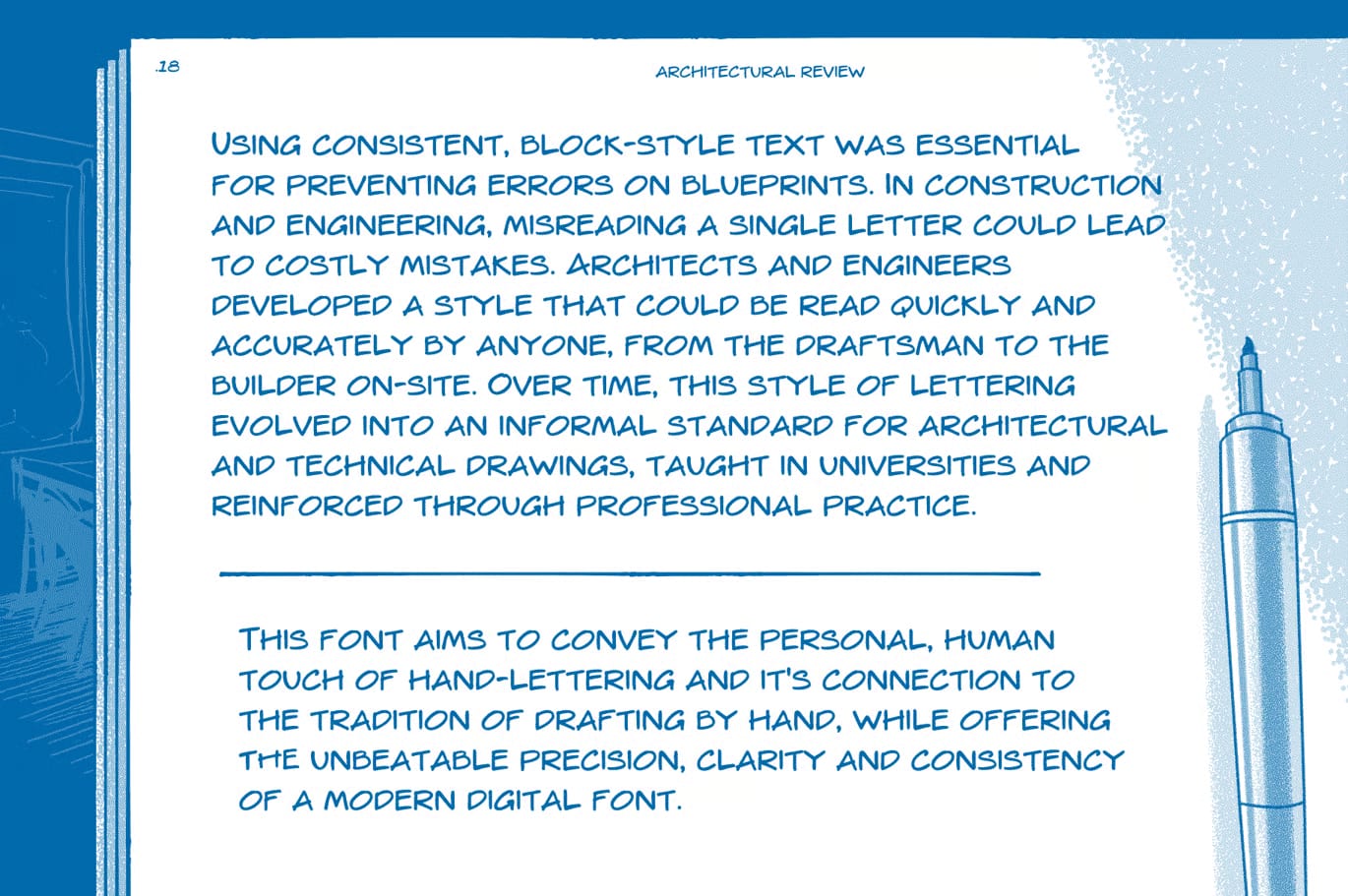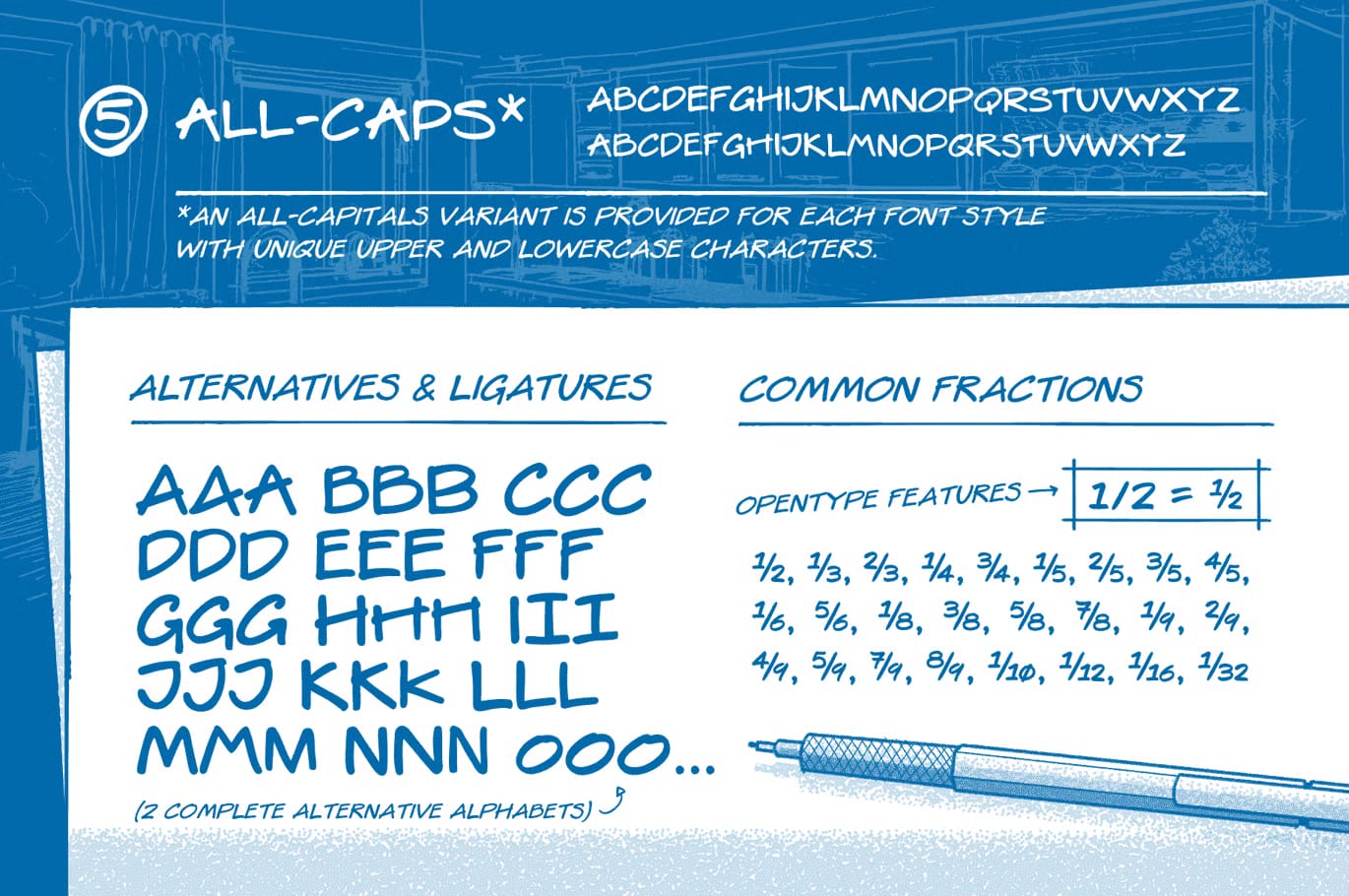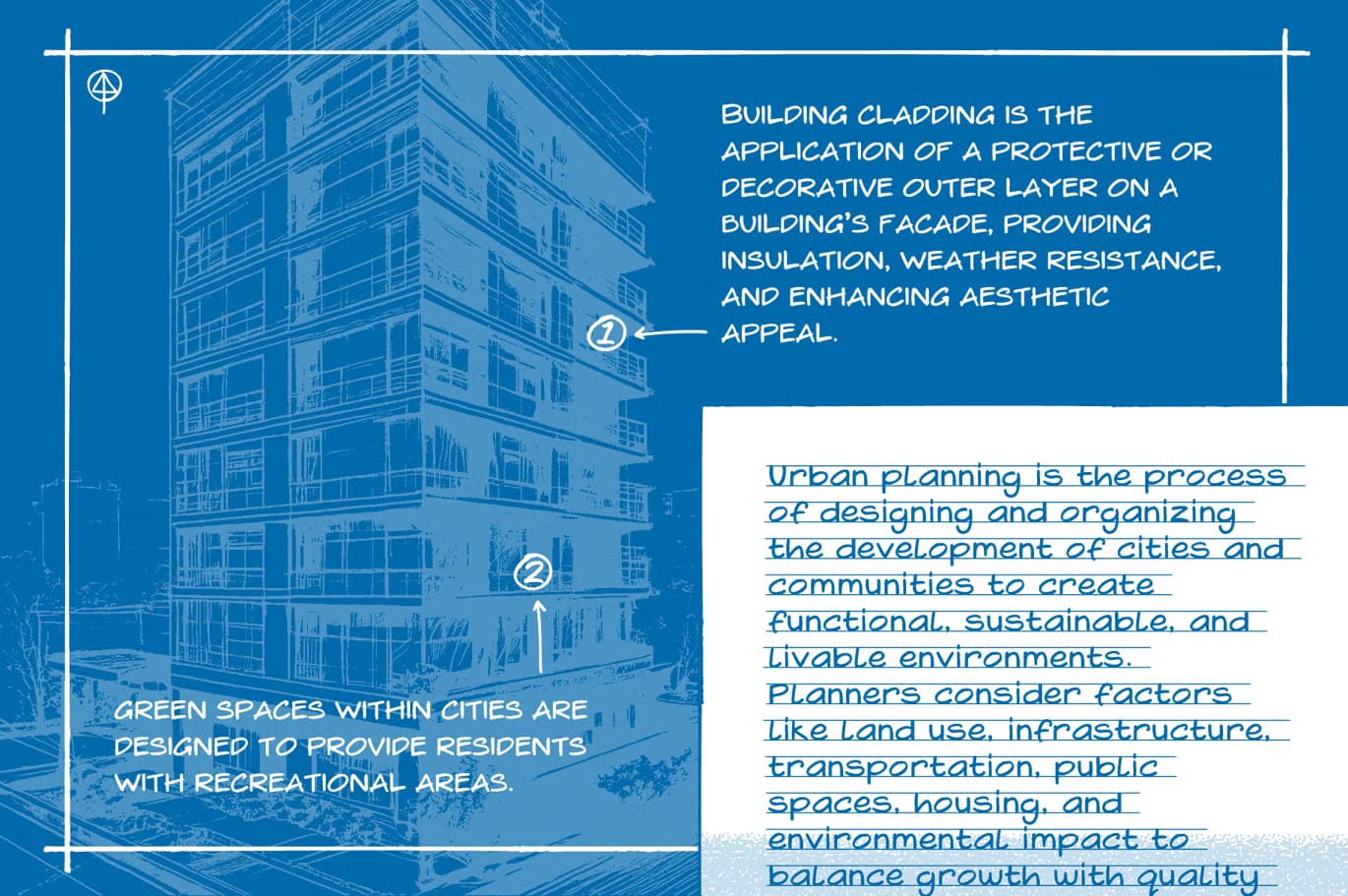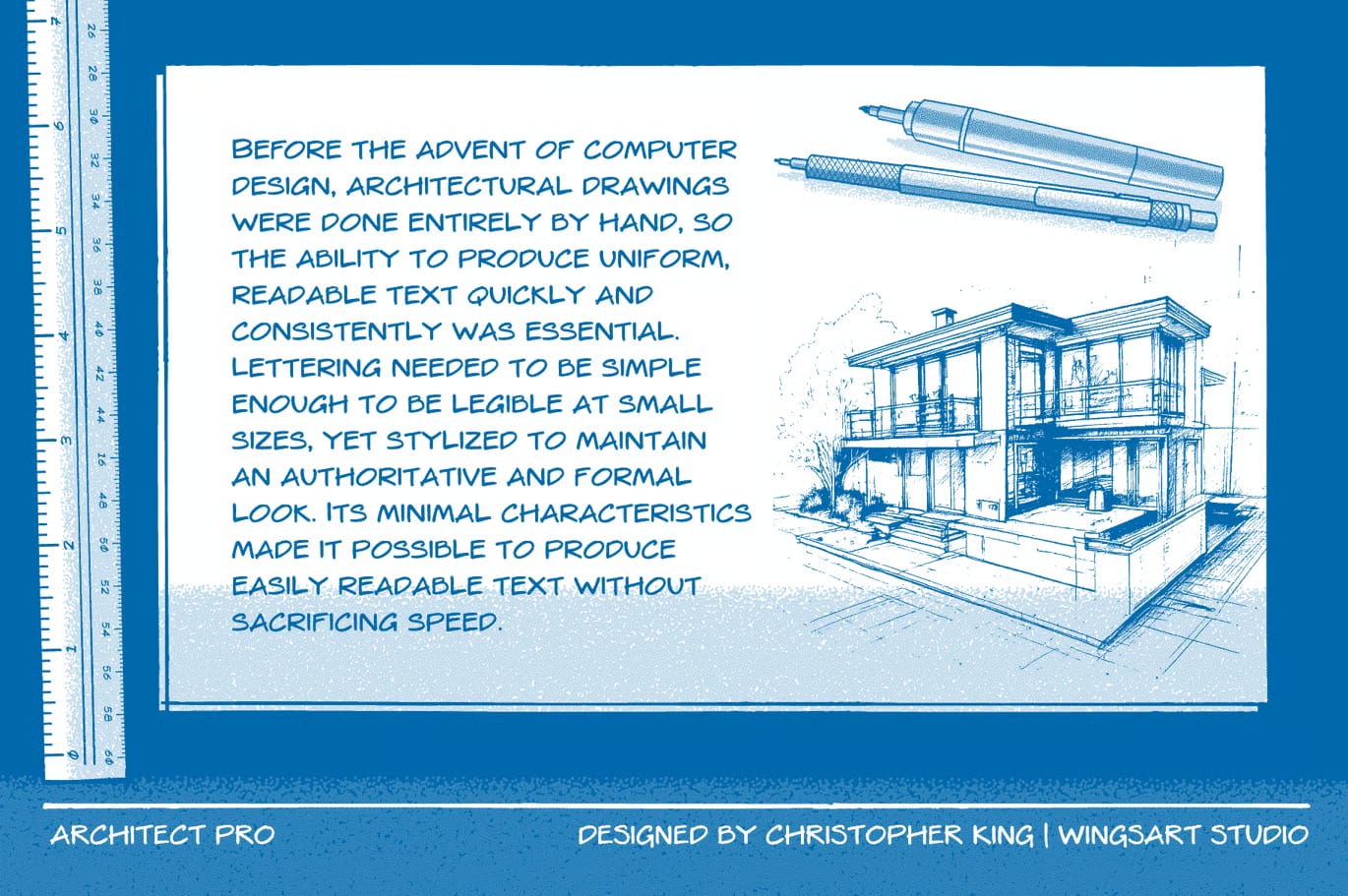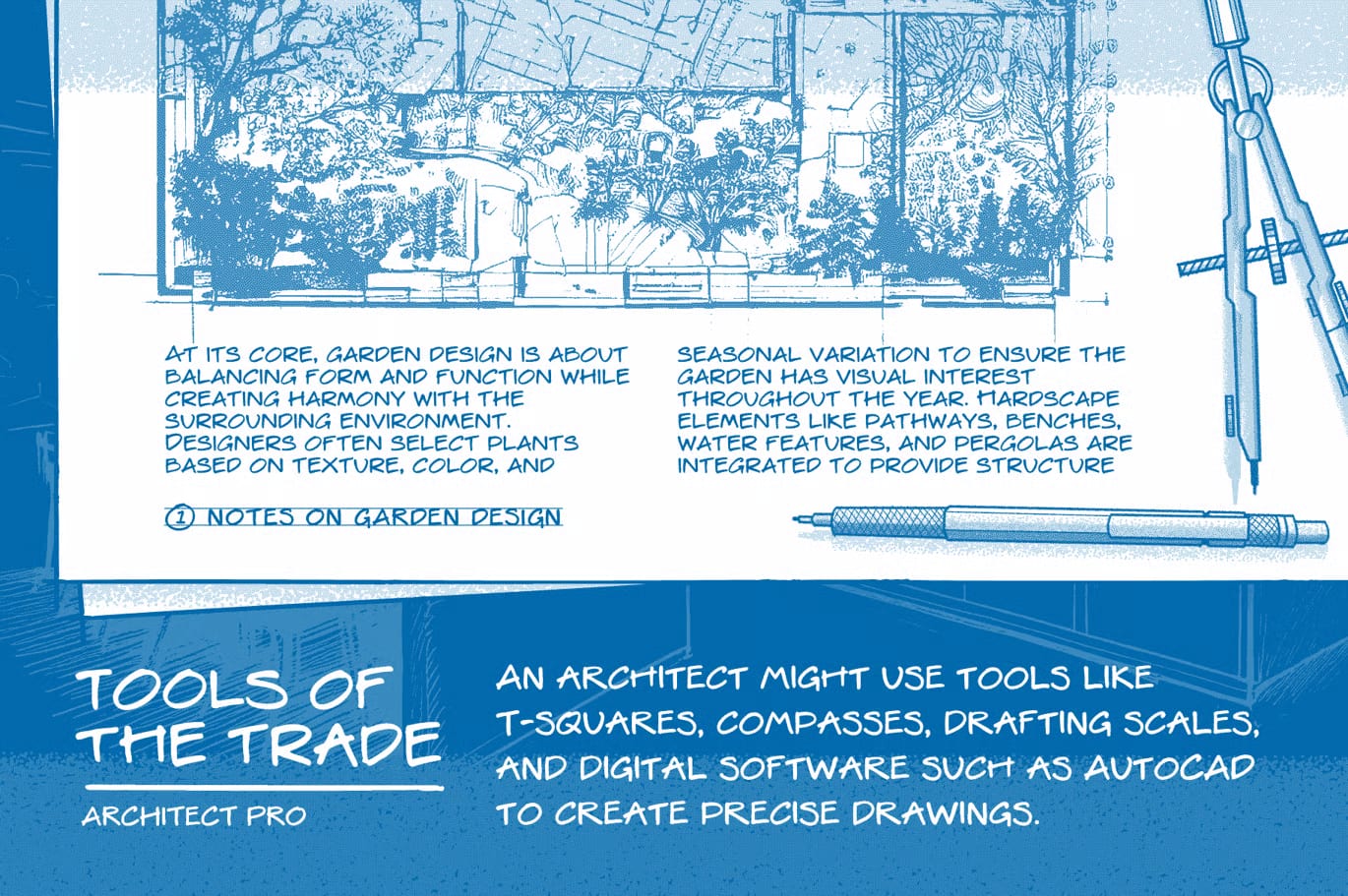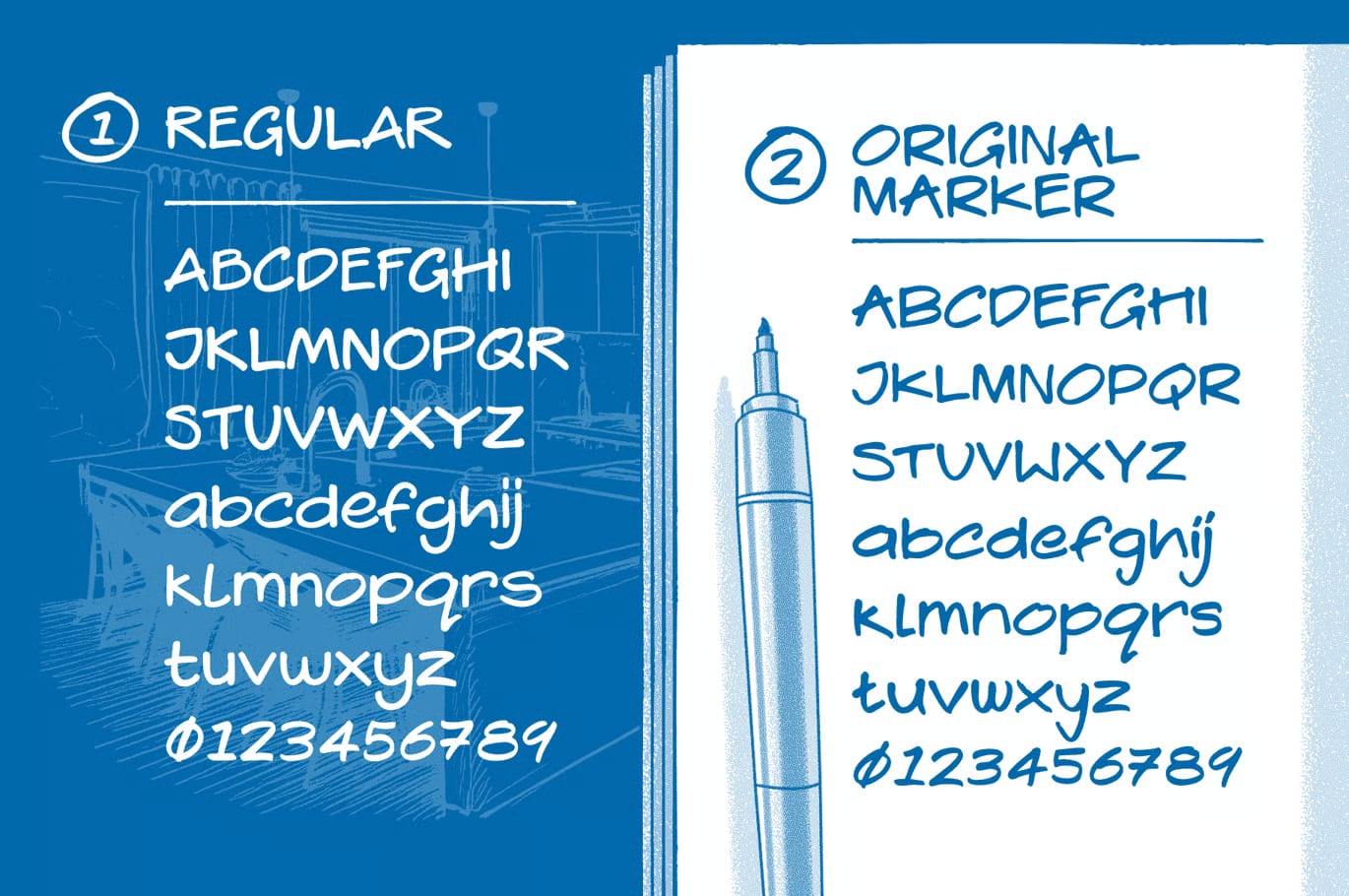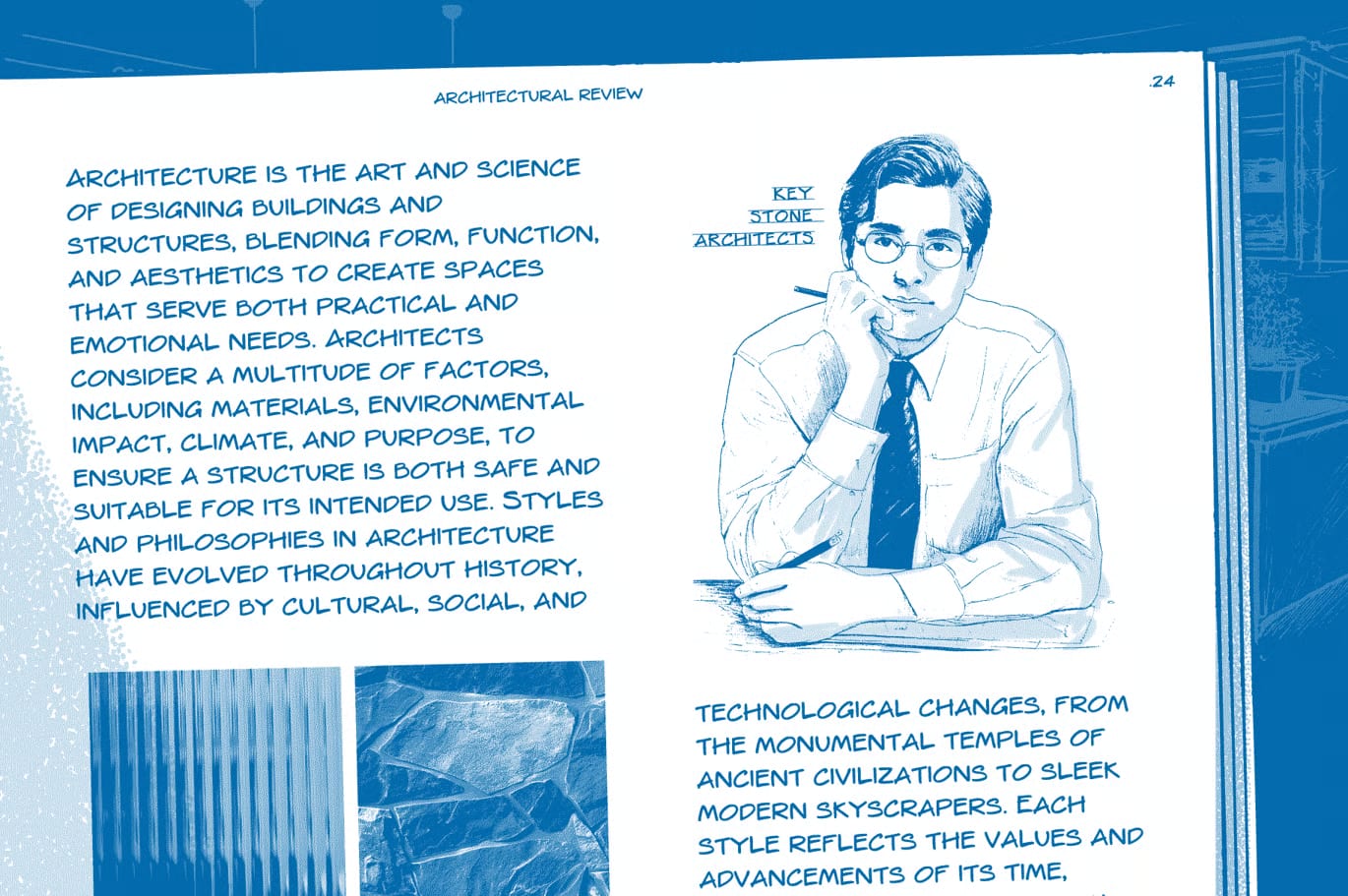
Architect Pro Free Font Family – Technical Handwriting Style
Architect Pro is a technical handwriting font inspired by the clear lettering used in architectural drawings. It keeps that hand-drawn feel while staying clean, readable, and consistent, which makes it fit well with drafting-style projects and other design work that needs a neat, professional look.
This font family includes 29 fonts across 4 style groups, with Regular, Marker, Italic, and Ruled versions. It comes with uppercase and lowercase letters, numbers, punctuation, symbols, language support, and extras like underlines and arrows. OpenType alternates are also included to help avoid repeated letter shapes and keep the text looking more natural.
Inside the pack, you get Regular with Alternative 01, Alternative 02, Caps, Caps Alternative, and Symbols, including underlines. Marker also includes Alternative 01, Alternative 02, Caps, and Caps Alternative. The Italic set covers Marker Italic, Caps Italic, Marker Caps Italic, Ruled Caps Italic, Marker Ruled Italic, and Marker Ruled Caps Italic, while Ruled includes Alternative 01, Alternative 02, Marker, Marker Alternative 01, Marker Alternative 02, Caps, Caps Alternative 01, and Marker Caps Alternative 01.